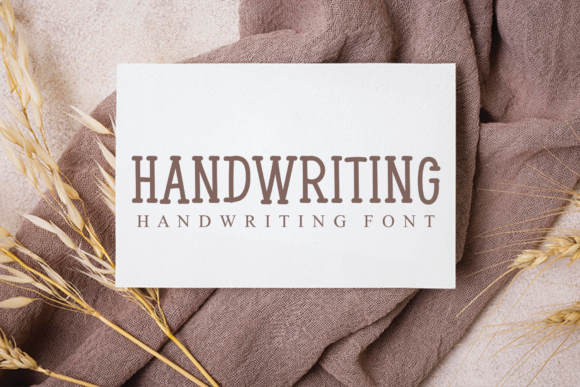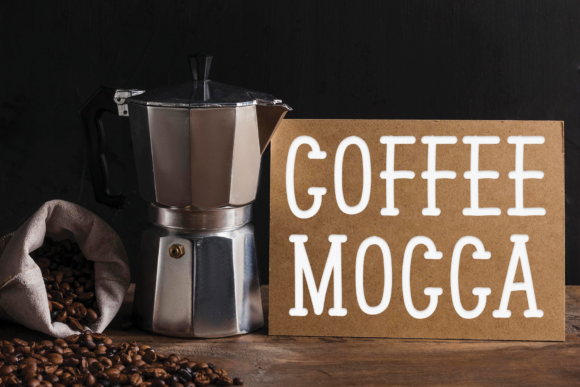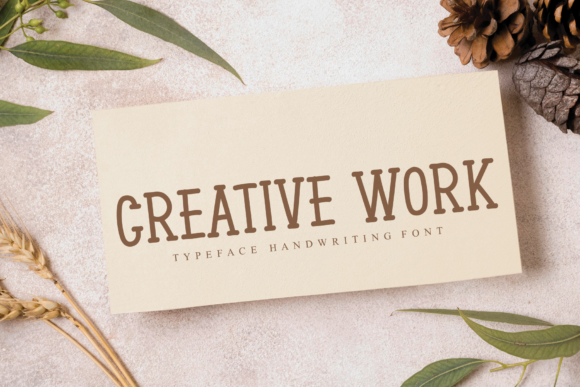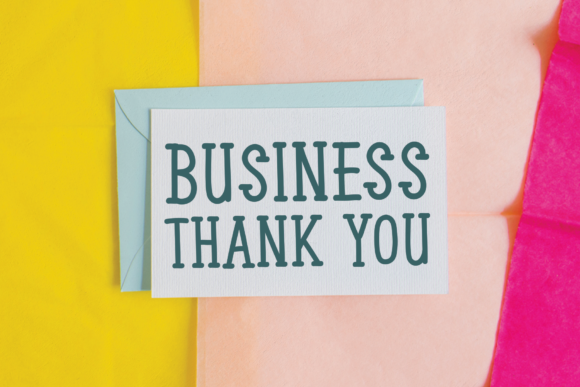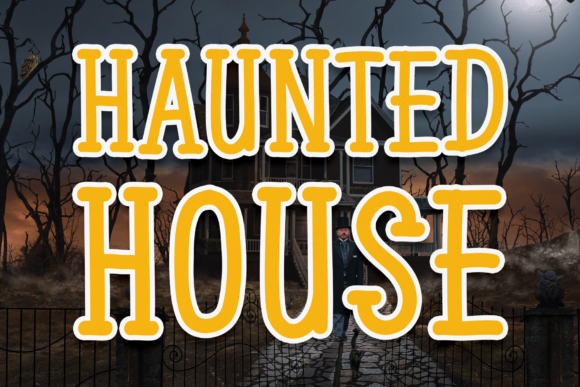
Unleash the Spook: Exploring the Haunted House Font
Are you a designer or crafter looking for a font that can add a touch of eeriness and excitement to your projects? Look no further than the Haunted House Font. This bold and chunky lettered display font is perfect for creating a wide range of designs, from branding and product packaging to invitations, quotes, t-shirts, labels, posters, and logos.
What is Haunted House Font?
Haunted House Font is a unique and eye-catching typeface that is sure to grab attention. Its bold and chunky letters are perfect for creating designs that require a strong and impactful font. The font is versatile and can be used for both personal and commercial projects, making it a great addition to any designer’s toolkit.
Key Features of Haunted House Font
- Bold and Chunky Letters: The Haunted House Font features bold and chunky letters that are perfect for creating designs that require a strong and impactful font.
- Easily Readable: Despite its bold and chunky design, the font is easily readable, making it perfect for use in a wide range of designs.
Uses of Haunted House Font
The Haunted House Font is perfect for a wide range of design projects, including:
- Branding: Use the Haunted House Font to create bold and eye-catching branding for your business or product.
- Product Packaging: Add a touch of eeriness and excitement to your product packaging with the Haunted House Font.
- Invitations: Create spooky and exciting invitations for parties, events, and other gatherings.
- Quotes: Use the Haunted House Font to create inspiring and eye-catching quotes.
- T-Shirts: Create bold and eye-catching t-shirts with the Haunted House Font.
- Labels: Use the font to create labels for products, files, and other items.
- Posters: Create eye-catching posters for events, promotions, and other purposes.
- Logos: Use the Haunted House Font to create bold and eye-catching logos for your business or product.
Why Choose Haunted House Font?
There are many reasons why you should choose the Haunted House Font for your design projects. Here are a few:
- Unique and Eye-Catching: The font is unique and eye-catching, making it perfect for designs that require a bold and impactful font.
- Easily Readable: Despite its bold and chunky design, the font is easily readable, making it perfect for use in a wide range of designs.
Tips for Using Haunted House Font
Here are a few tips for using the Haunted House Font in your design projects:
- Use it Sparingly: While the Haunted House Font is bold and eye-catching, it can be overwhelming if used too much. Use it sparingly to add impact to your designs.
- Pair it with Other Fonts: The Haunted House Font pairs well with other fonts, so don’t be afraid to experiment with different combinations.
- Experiment with Colors: The font looks great in a wide range of colors, so experiment with different colors to find the one that works best for your design.
The Haunted House Font is a bold and chunky lettered display font that is perfect for creating a wide range of designs. Its unique and eye-catching design makes it perfect for adding a touch of eeriness and excitement to your projects. With its versatility, readability, and high-quality design, the Haunted House Font is a great addition to any designer’s toolkit.